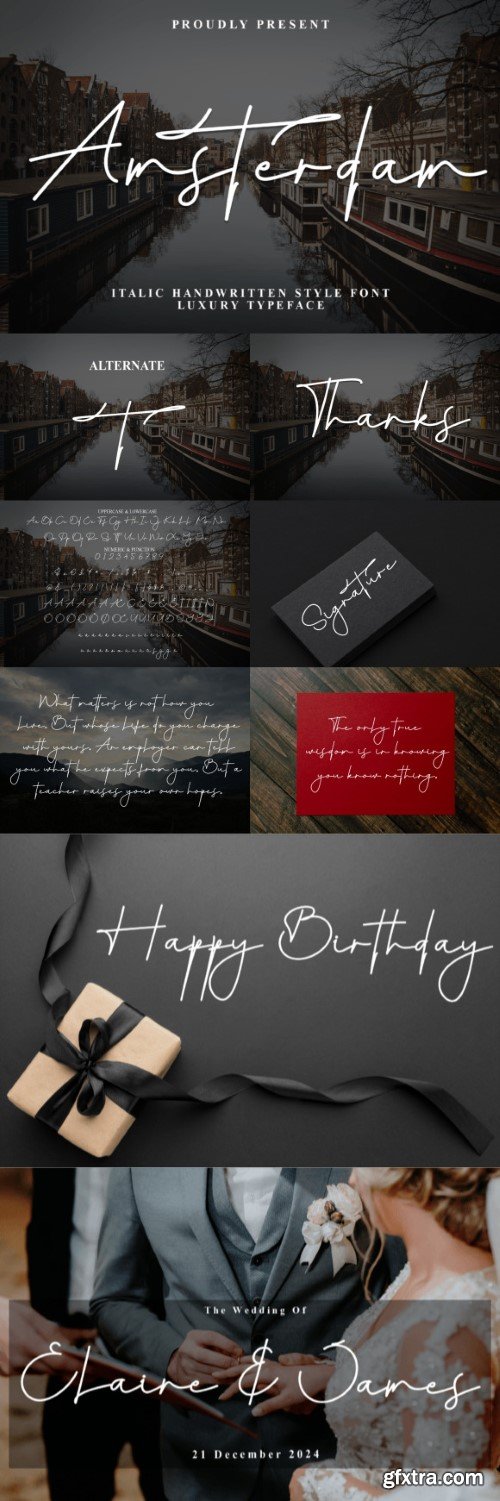
Amsterdam is a charming handwritten script font, perfect for adding a personal, festive touch to your designs. Its flowing, elegant curves give a warm, joyful feel, making it ideal for holiday cards, invitations, and seasonal projects.